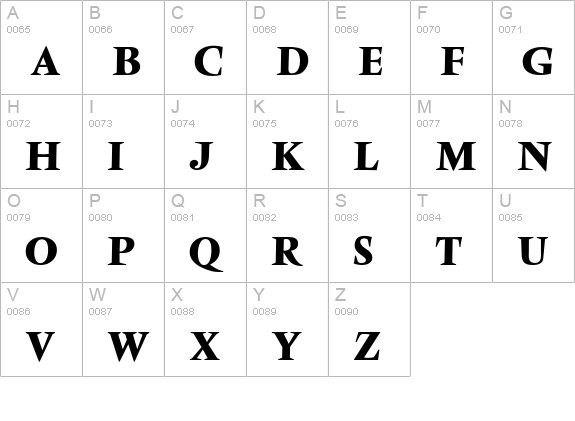
Ventura-Bold Font Details
Ventura-Bold is a strong, high-contrast variant in the Ventura typeface family \xE2\x80\x94 well suited to headlines, attention-grabbing titles, and strong calls-to-action.
Ventura-Bold is a captivating font that exudes power and confidence with its bold and strong letterforms. Its sleek and modern design makes it perfect for a wide range of projects, from eye-catching headlines to impactful branding materials. This versatile typeface commands attention and delivers a striking visual impact, making it an ideal choice for designers who want to make a bold statement. The bold weight of Ventura-Bold ensures that your message will be noticed and remembered. With its clean lines and well-balanced proportions, Ventura-Bold is both timeless and contemporary, effortlessly blending classic elegance with a modern edge. Its versatility allows it to be used across various design styles, from minimalist to intricate. What sets Ventura-Bold apart is not just its remarkable aesthetics, but also its accessibility. It is available for free download at FontsMarket.com, making it easily accessible to designers, artists, and creatives from all walks of life. Whether you are a professional designer or a hobbyist, Ventura-Bold empowers you to bring your creative vision to life without any limitations. So, if you are looking for a font that combines strength, style, and accessibility, look no further than Ventura-Bold. Download it for free at FontsMarket.com and experience the power of this remarkable typeface firsthand. Let Ventura-Bold elevate your designs and leave a lasting impression on your audience.